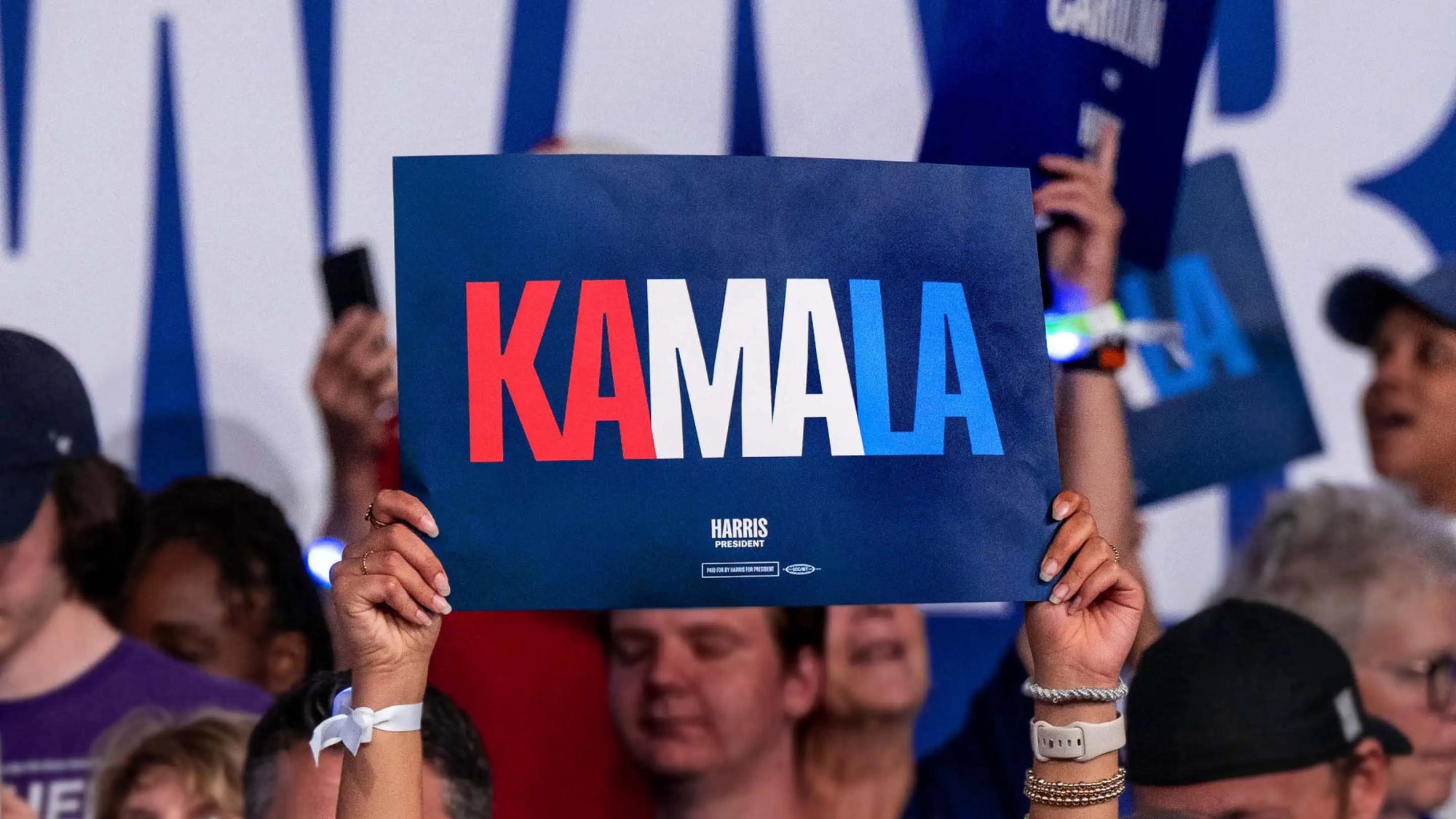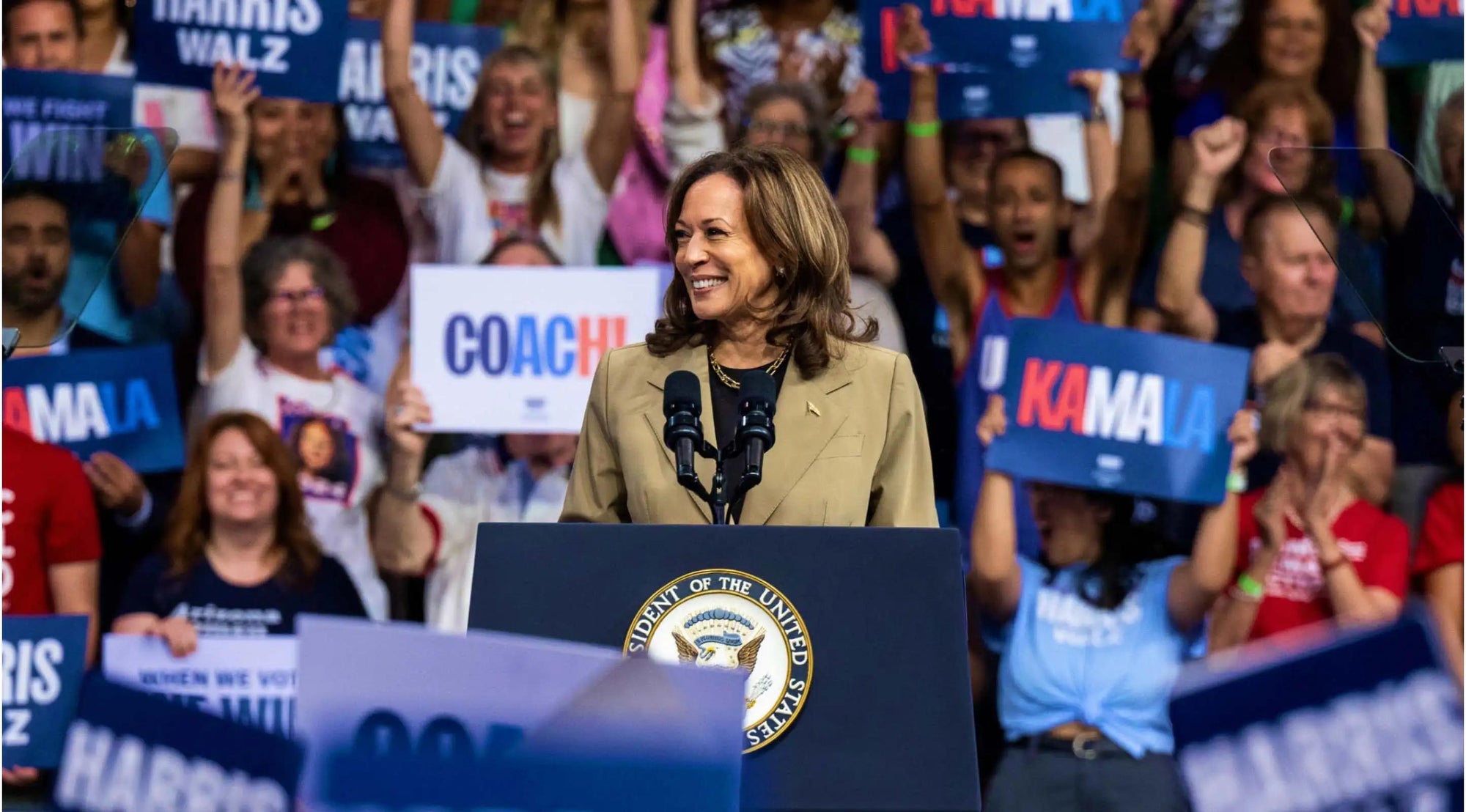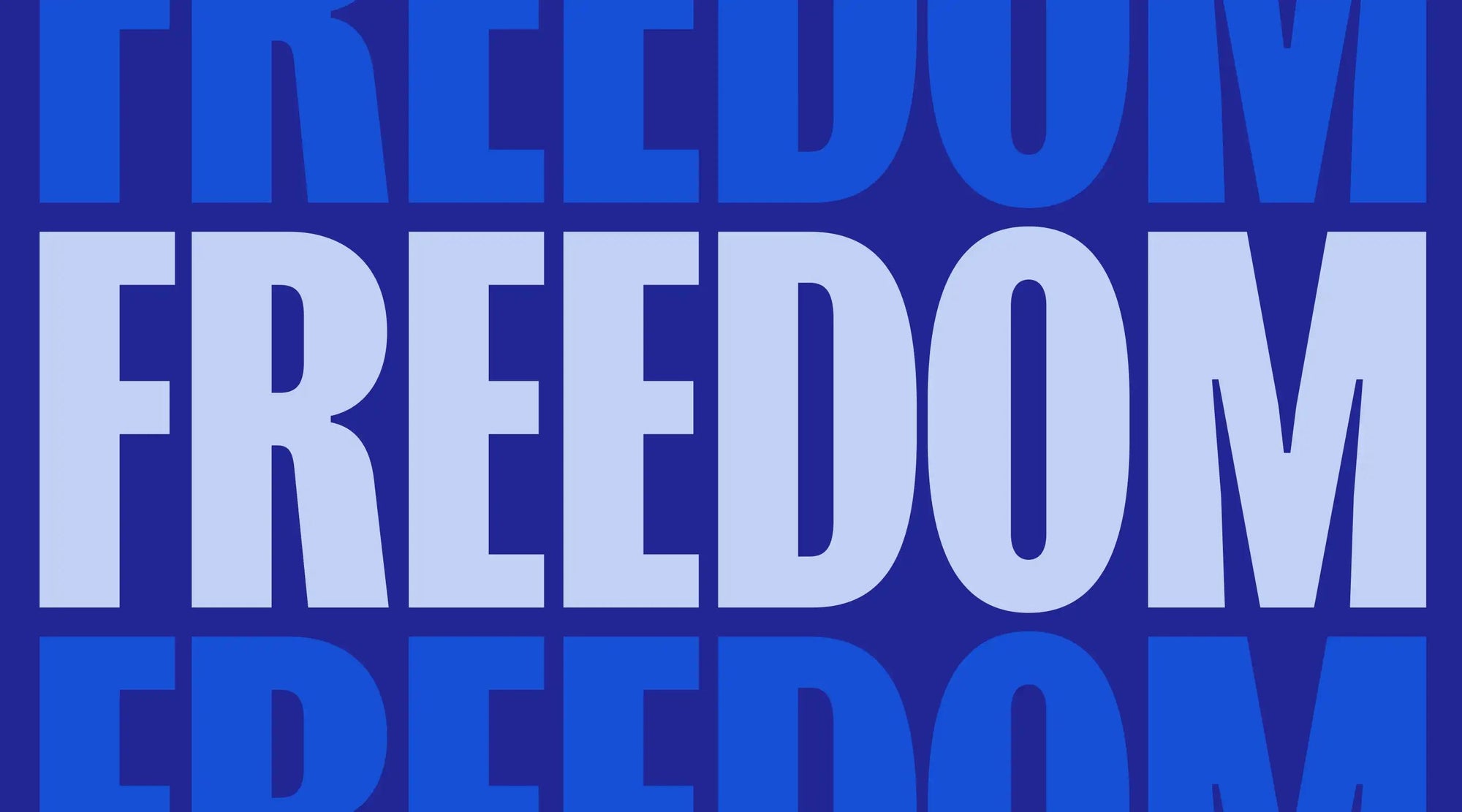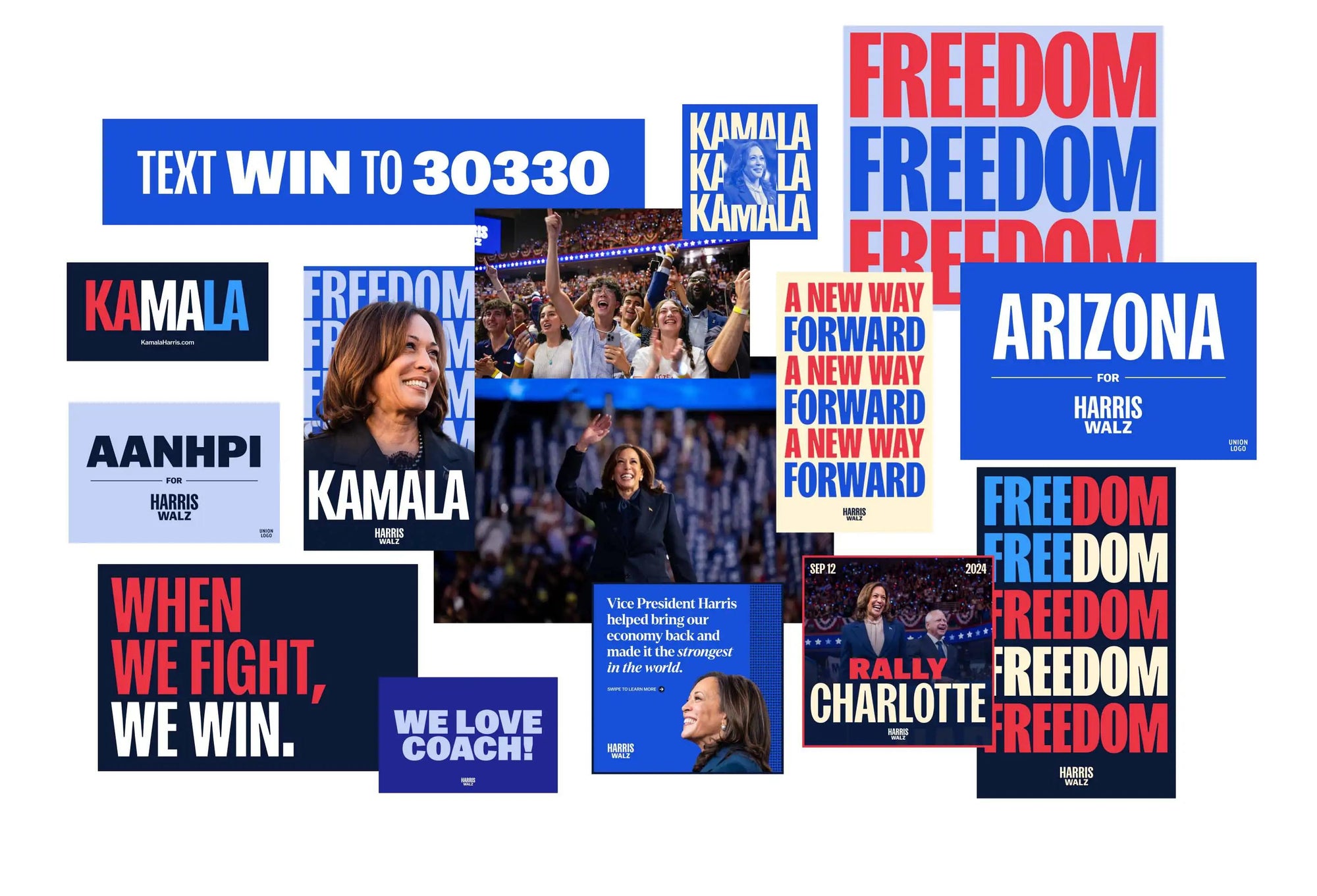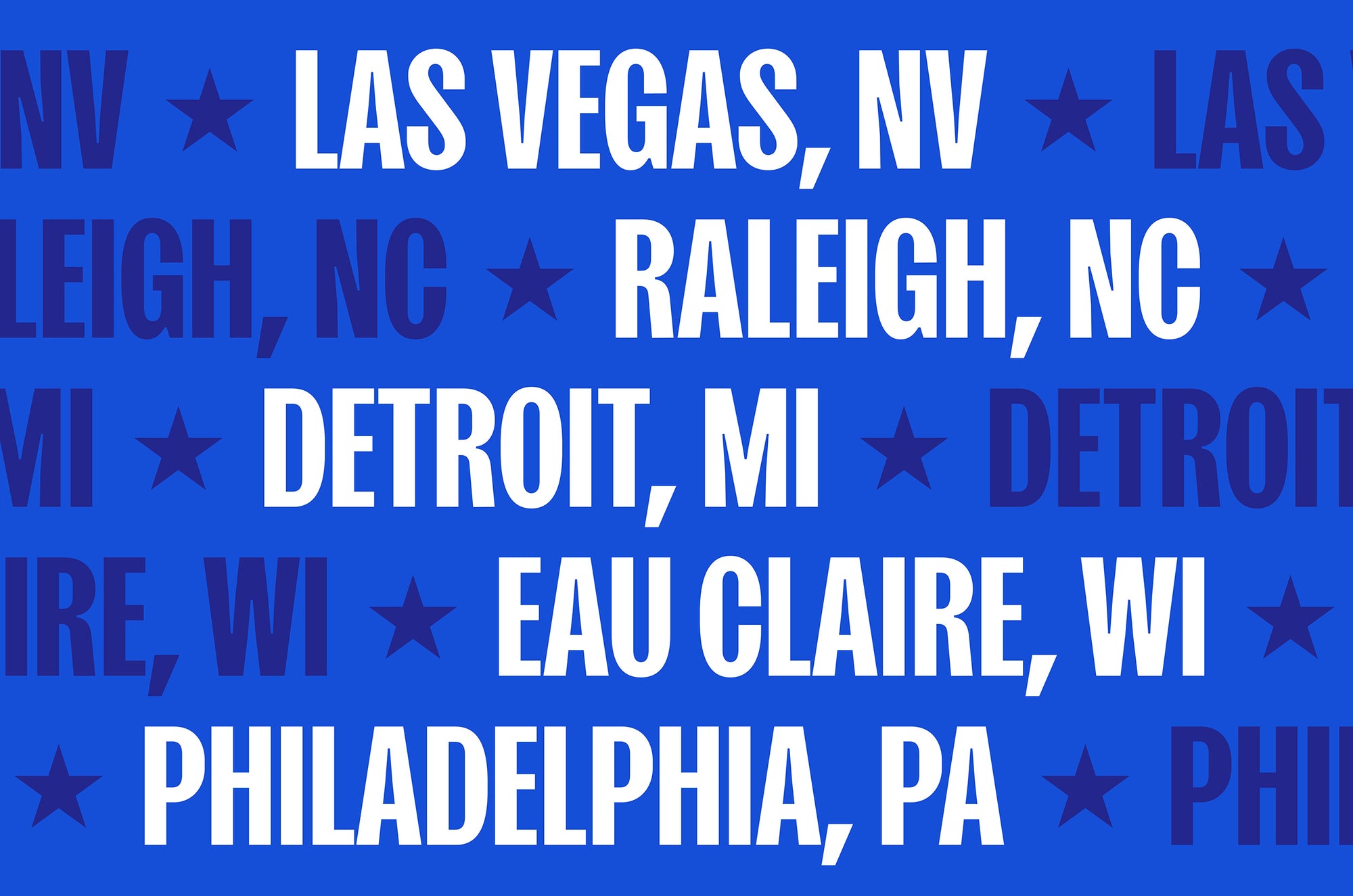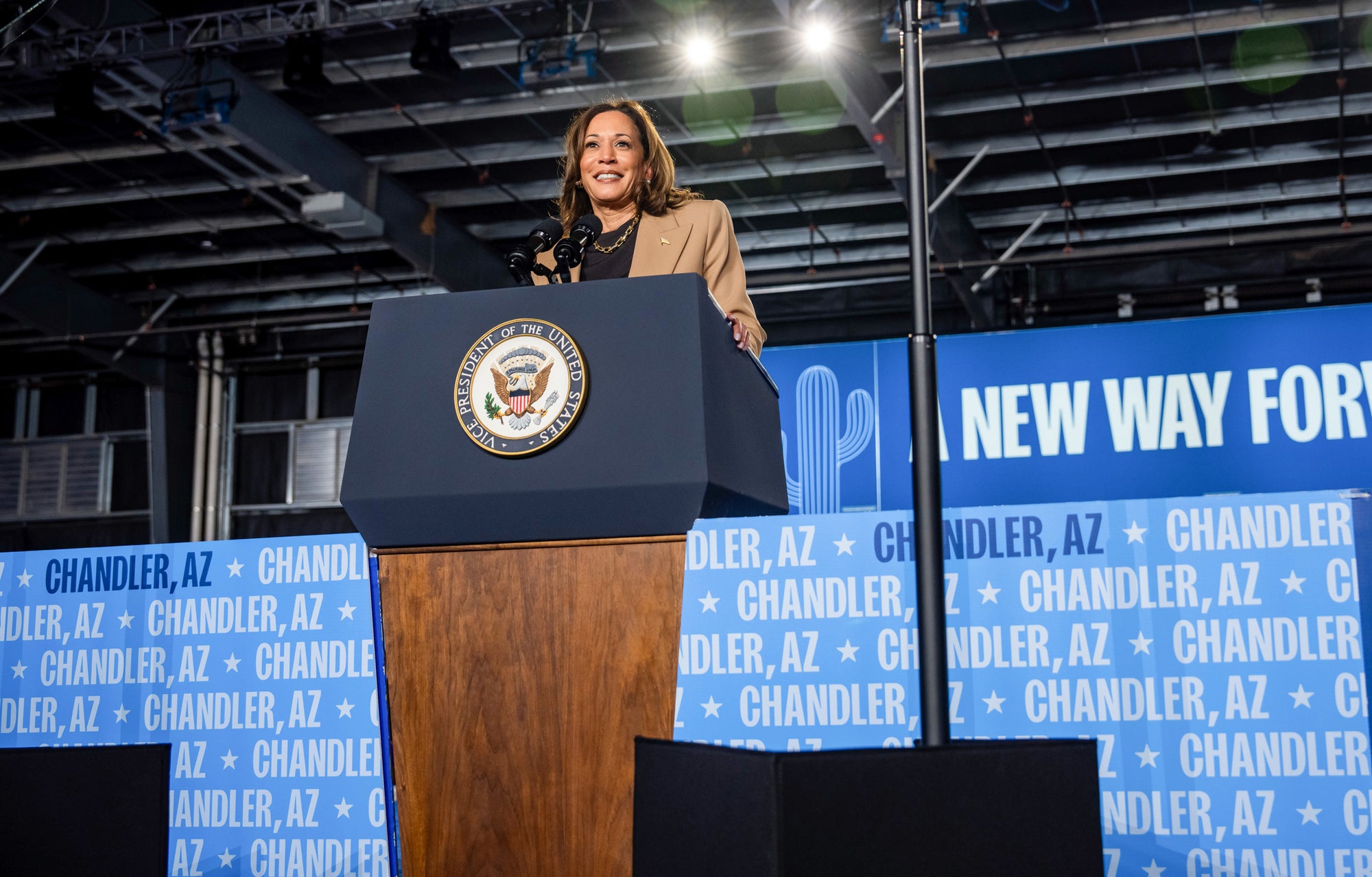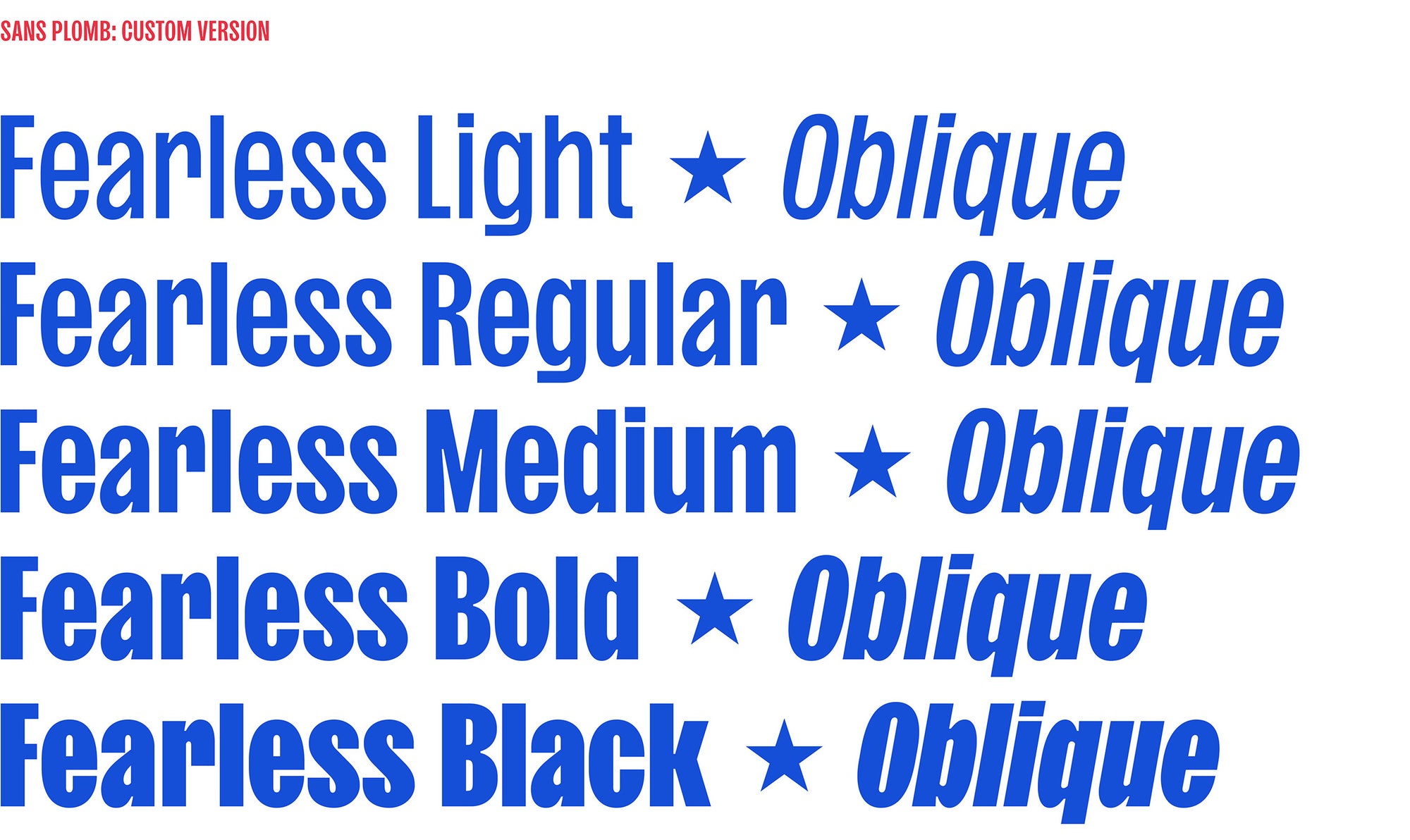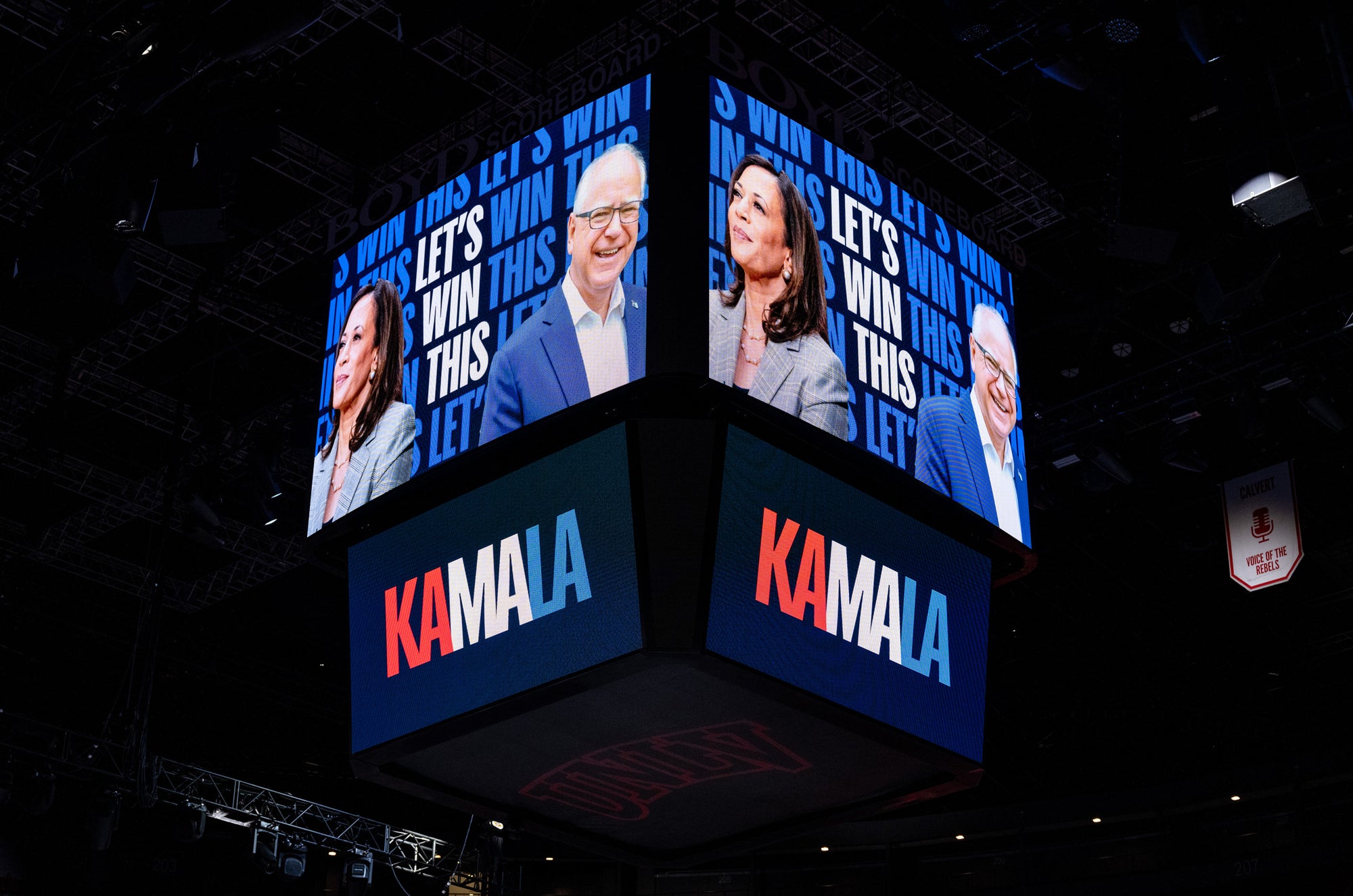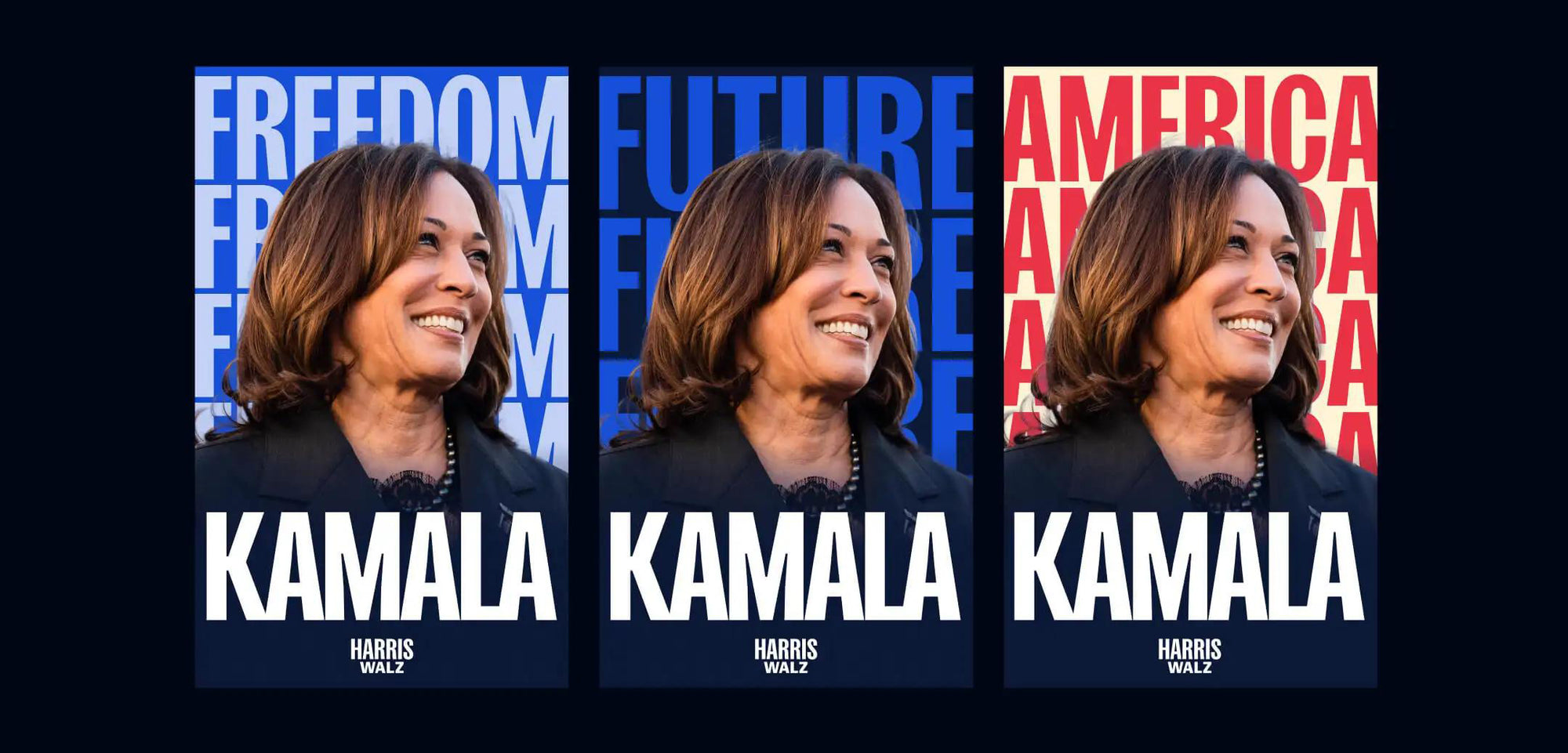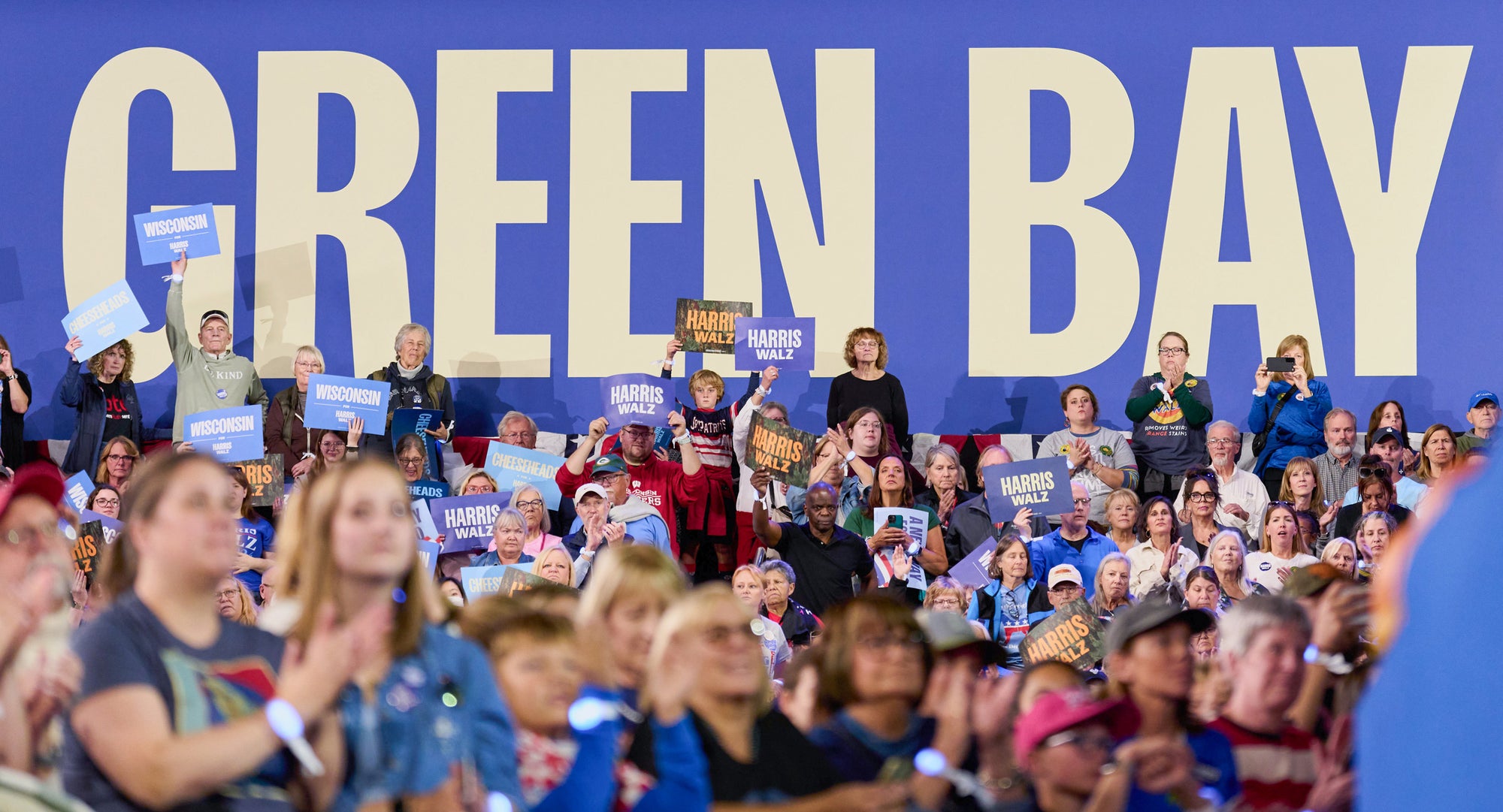
Harris for President 2024
A typographic-forward identity
In 2024, we customized our Sans Plomb type family to support the visual identity of Kamala Harris’s presidential campaign. The creative direction drew inspiration from American political graphics of the 1940s–70s: bold, direct, and unmistakably optimistic. Sans Plomb was selected by Wide Eye to embody to visually embody the candidate’s charisma and determination — a condensed, structured, no-nonsense typeface capable of expressing authority with contemporary clarity.
To give the campaign greater expressive range, we expanded the type family with new weights, renaming this tailored version Fearless. We also developed a fully rectangular punctuation system to align every typographic detail with the project’s graphic intent. This customized version provided a powerful, coherent, and instantly recognizable foundation across all campaign communications.